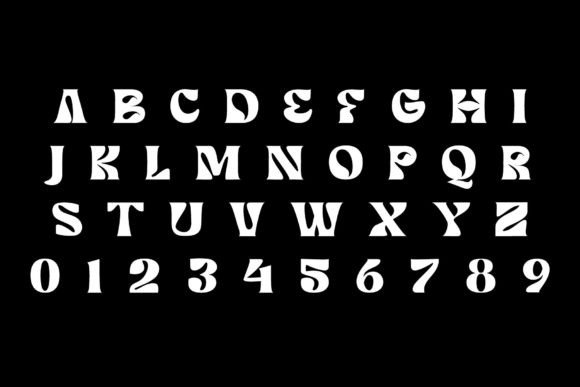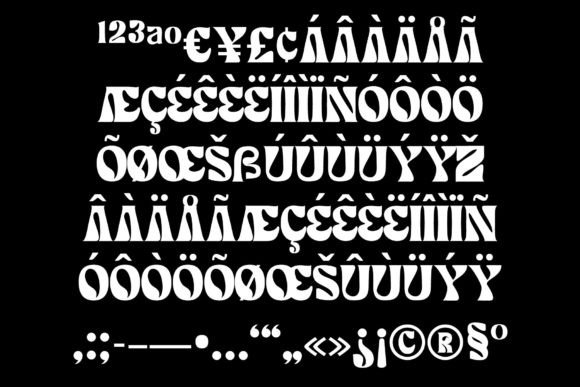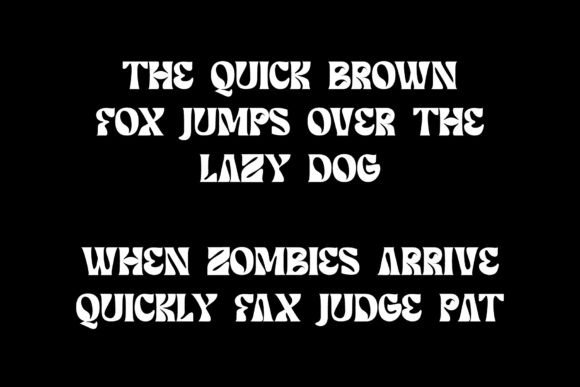
Introduction to Felady Font
Have you ever stumbled upon the perfect font while working on a creative project, and suddenly your entire design transforms? That’s exactly what happened to many designers when they discovered the Felady Font. This stylish and sophisticated display font has been a game-changer for designers, offering a unique blend of charm and retro flair.
With its uniquely shaped characters, Felady Font is perfect for creating gorgeous designs that stand out from the crowd. Whether you’re working on a logo, poster, or social media graphic, this font is sure to elevate your design to the next level. And the best part? It’s available for free download, making it a valuable resource for designers of all levels.
As a design resource, Felady Font is incredibly valuable, offering high-quality characters that can be used with a transparent background. This means you can easily integrate it into your design without worrying about any unwanted backgrounds. Whether you’re a seasoned pro or just starting out, Felady Font is an essential addition to your design arsenal.
Key Features of Felady Font
- High-quality design resource with a unique and creative style, ideal for various projects.
- Features a transparent background, making it easy to customize and combine with other design elements.
- Supports a wide range of languages, including English, making it a versatile design resource for global projects.
Honest Review: Felady Font
As a designer, I’m always on the lookout for high-quality design resources to elevate my creative projects. Recently, I stumbled upon the Felady Font, which caught my attention with its sleek and modern aesthetic.
- ✨ The Felady Font is incredibly versatile, suitable for a wide range of creative projects, from logos to brochures.
- ✨ The font’s transparent background feature makes it easy to customize and integrate with any design.
- ⚠️ The font’s character set is limited, which may not be ideal for designers working on complex projects that require a wide range of characters.
- ⚠️ The font’s compatibility may vary across different devices and software, which could lead to some formatting issues.
Overall, I’m impressed with the Felady Font’s high quality and design flexibility. While it may not be perfect, it’s an excellent resource for designers looking to add a modern touch to their creative projects.
Felady Font
Tips for Getting the Most Out of Felady Font
Use Felady Font in combination with other high-quality design elements to create a cohesive and visually appealing design. Experiment with different font sizes, colors, and alignments to find the perfect look for your project. Felady Font’s high-quality design makes it perfect for any creative project, from business presentations to personal projects.
Common Use Cases for Felady Font
Felady Font is perfect for any creative project that requires a touch of elegance. Common use cases include business presentations, personal projects, and design resources. With its free download and high-quality design, Felady Font is an excellent choice for any design project.